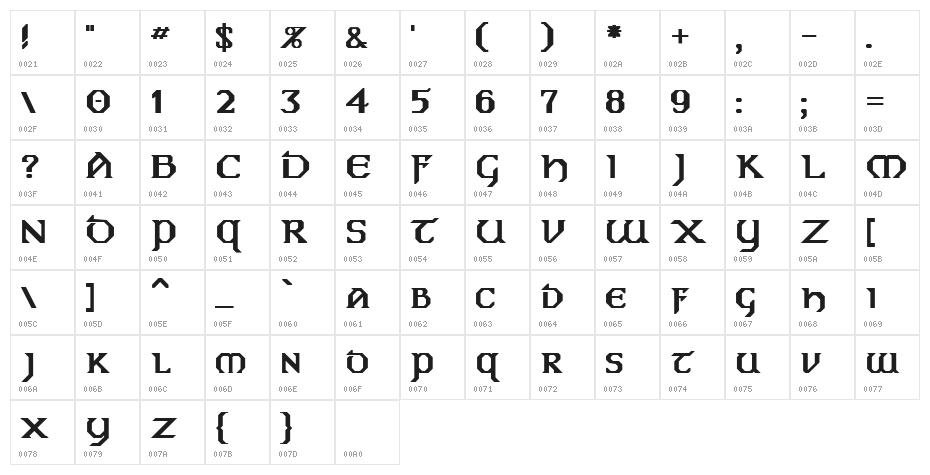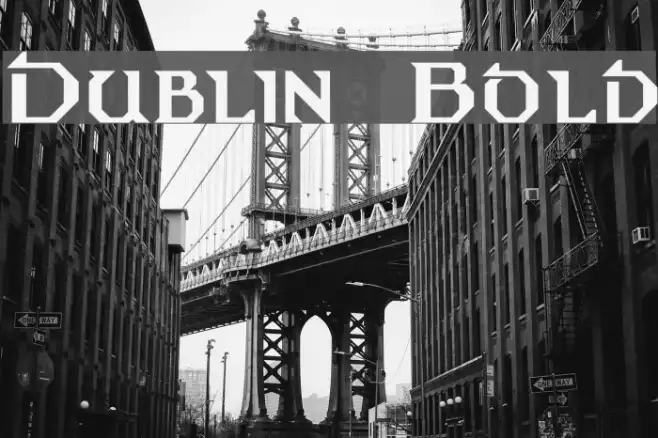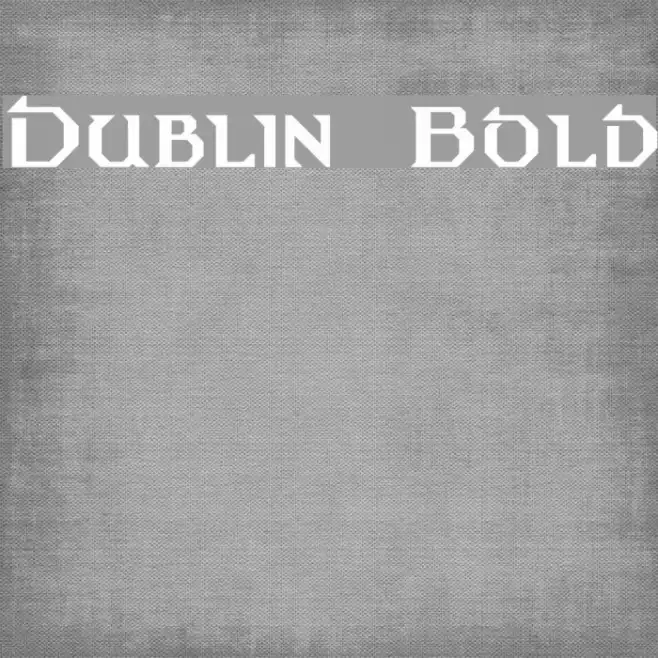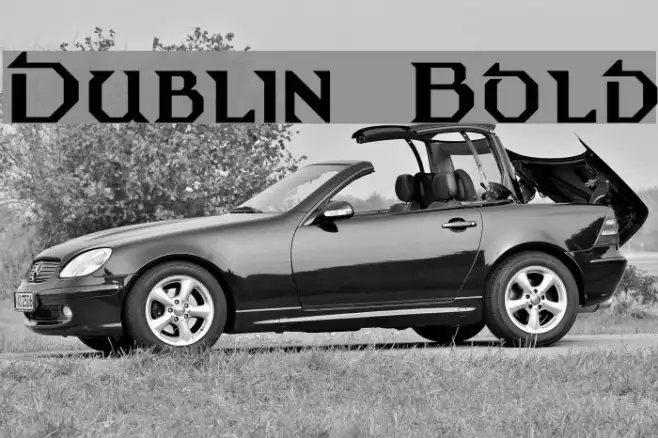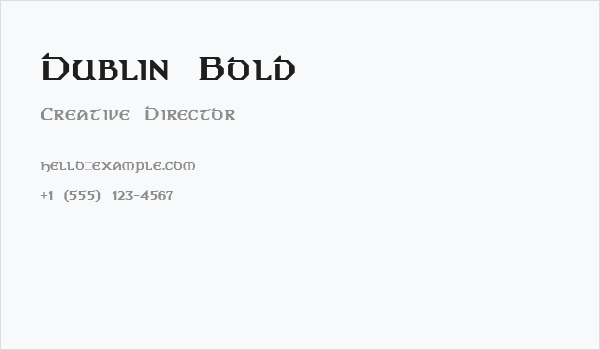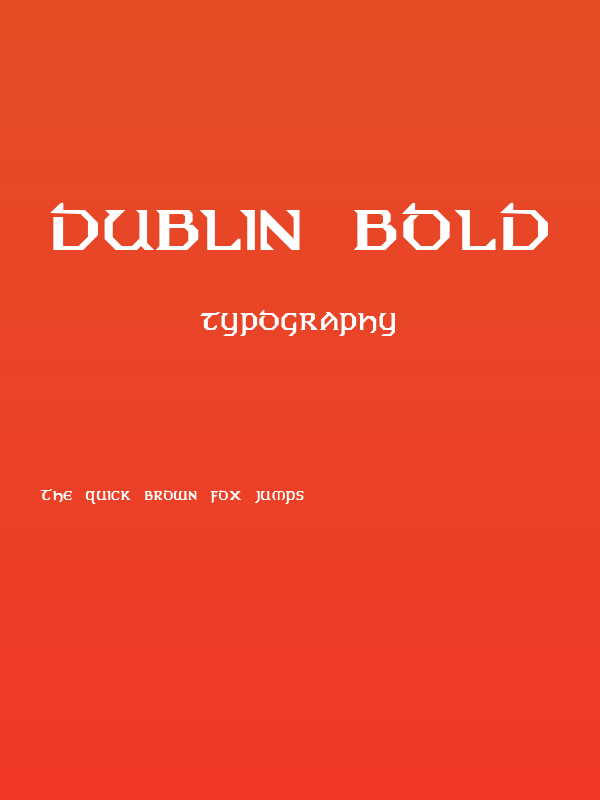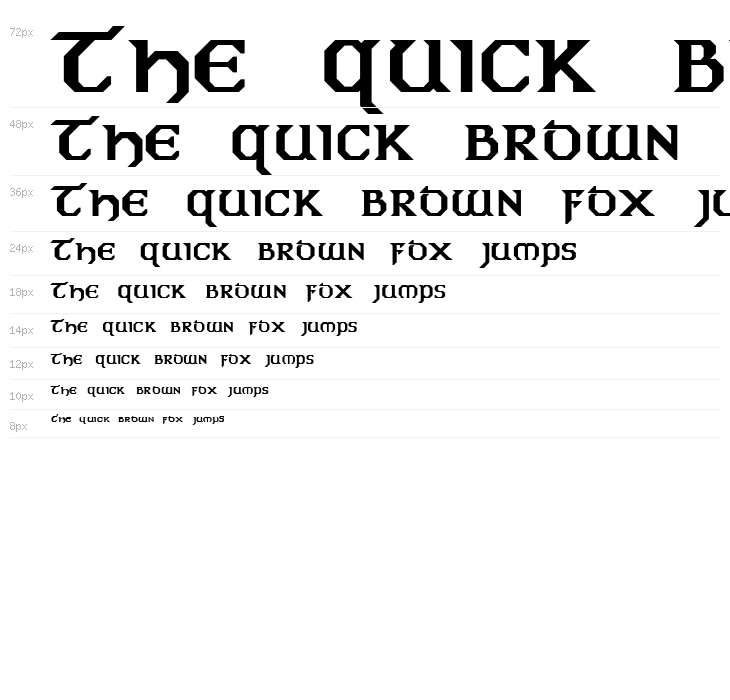
Dublin Bold Font
Dublin Bold Description
This font features a bold, angular design with a distinct geometric style. The characters are crafted with sharp edges and a strong presence, reminiscent of medieval or gothic influences. The uppercase and lowercase letters maintain a consistent weight, providing a cohesive look across the typeface. The numerals and special characters follow the same design principles, ensuring uniformity. This font's unique style makes it stand out, offering a modern twist on traditional blackletter aesthetics.
| Proposed Projects | Ideal for branding, posters, album covers, and any project requiring a bold, distinctive typeface. |